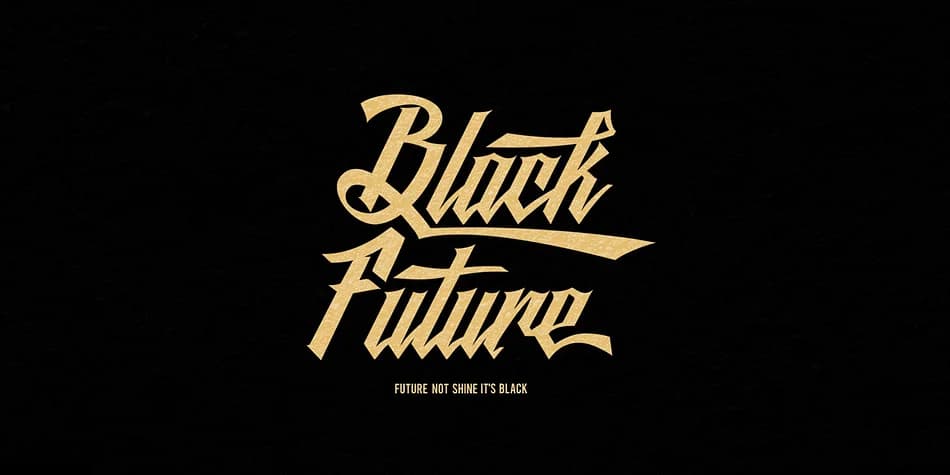
1 / 7About Black Future Font
Black Future by Seventh Imperium blends street art calligraphy with blackletter structure, creating a brush script that trades delicacy for bold, unmistakable impact. The sharp edges throughout give every letter a decisive quality that cuts through visual noise and demands immediate attention in ways most scripts simply can't. It's the kind of typeface built for headlines that need to hit way harder than most scripts can manage, not whisper.
The font ships with nearly 480 glyphs and a comprehensive toolkit of OpenType features: stylistic alternates, swashes, and enough letterform variety to keep display work from feeling repetitive across an entire series or campaign. That crispness on every stroke edge holds up beautifully when scaled for maximum visibility, while the hand-drawn skeleton underneath keeps the character alive and intentional rather than corporate or sterile. You'll find it working hardest in album covers, edgy band and music venue posters, bold clothing brand identities, fashion-forward labels, skateboard and apparel graphics, graffiti-inspired retail signage, and tattoo studio portfolios. The combination of calculated precision layered with organic texture gives this typeface serious weight and commanding presence wherever you deploy it.
Black Future Font is a script font that shines as a display or heading face. Pair it with a clean sans-serif or serif font for body text β the contrast creates a clear hierarchy while the two styles stay balanced and easy to read.